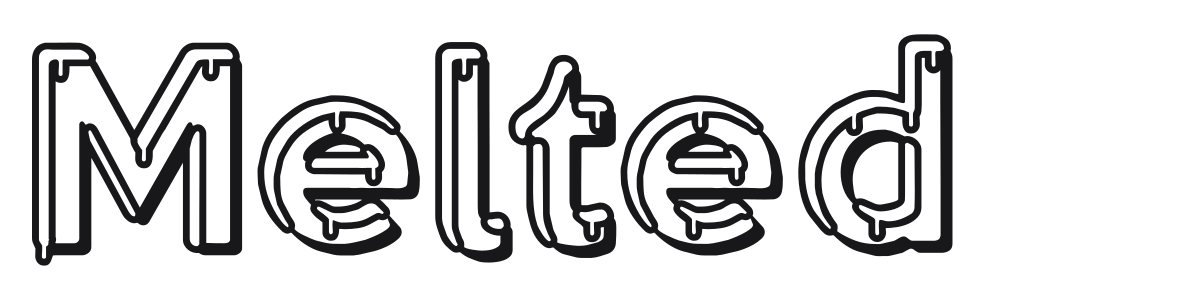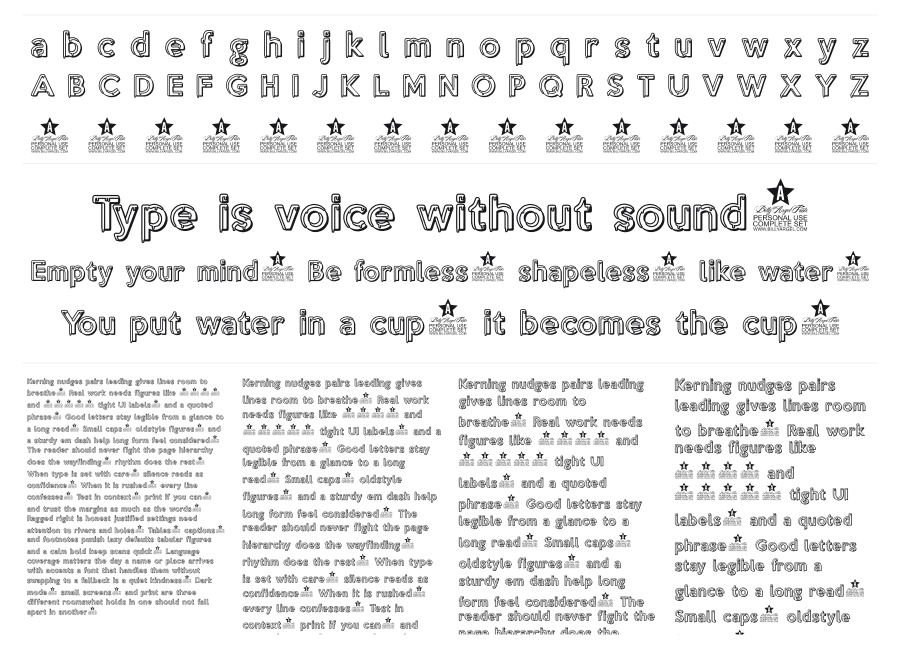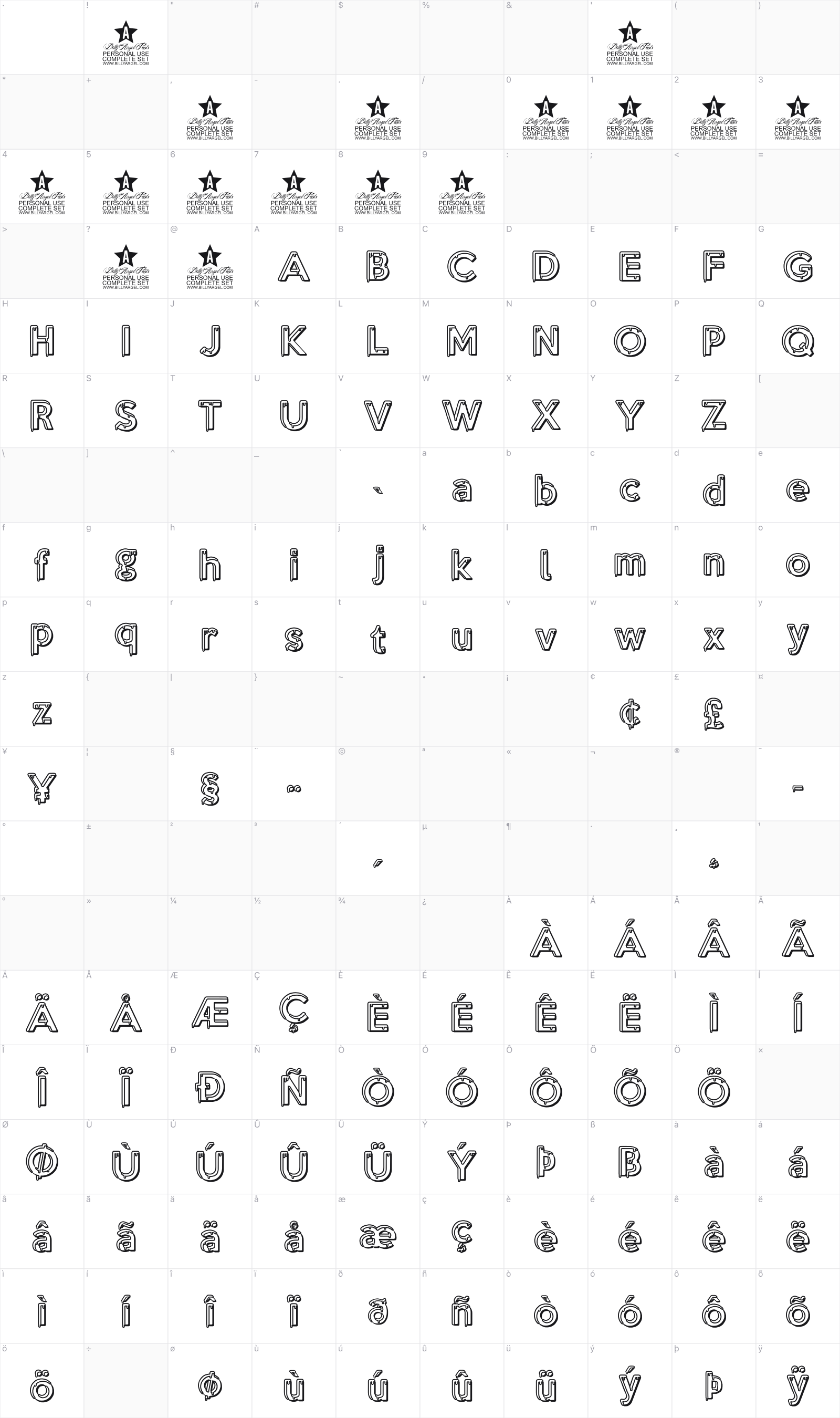
Melted
Melted is a chunky rounded display font built around the visual gag of typography slowly dripping apart. Strokes sag, terminals ooze downward, and the layered outline treatment gives it a retro screen-print quality. It works best at large sizes where the melting details can breathe.